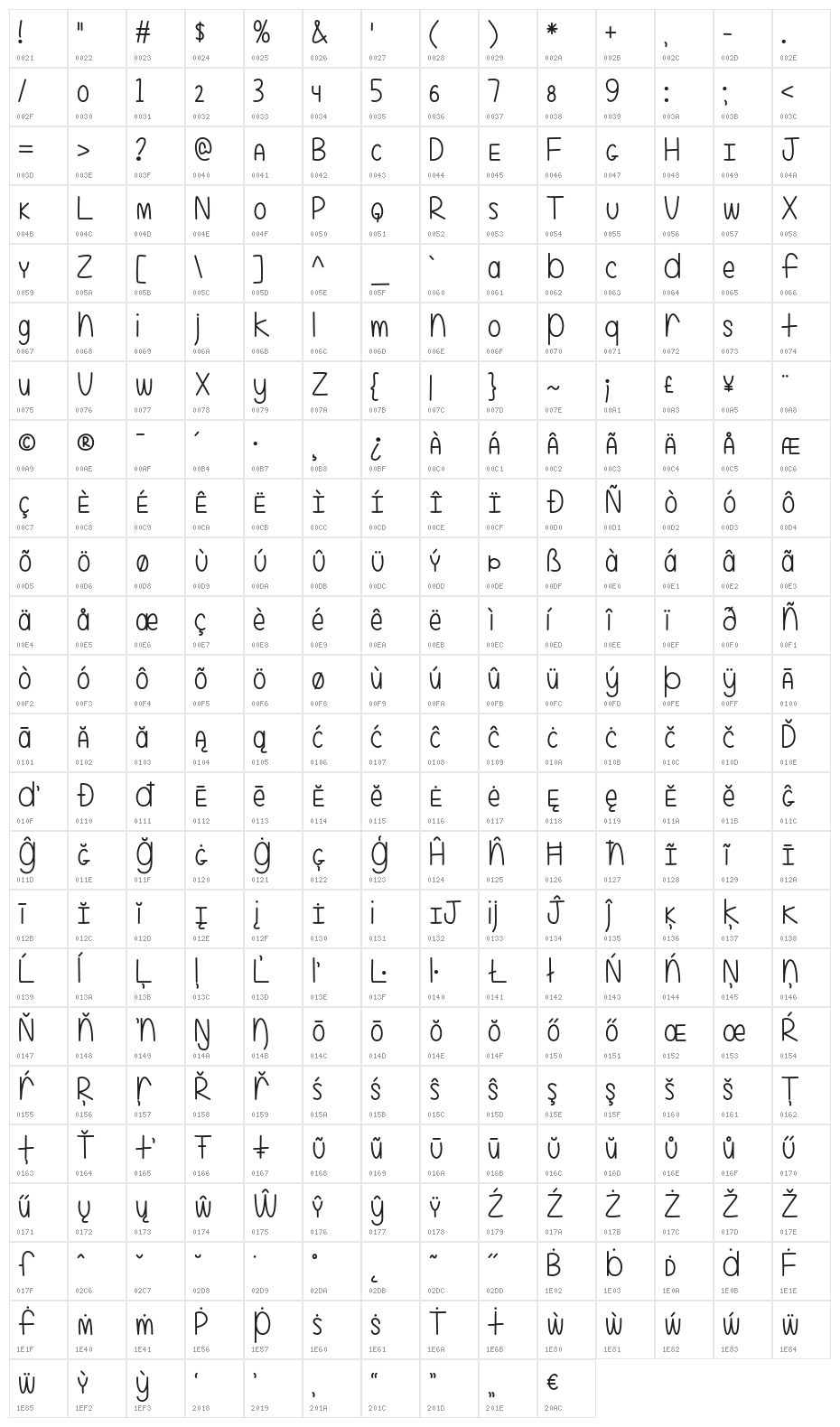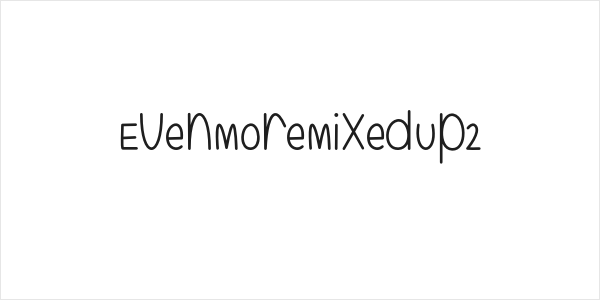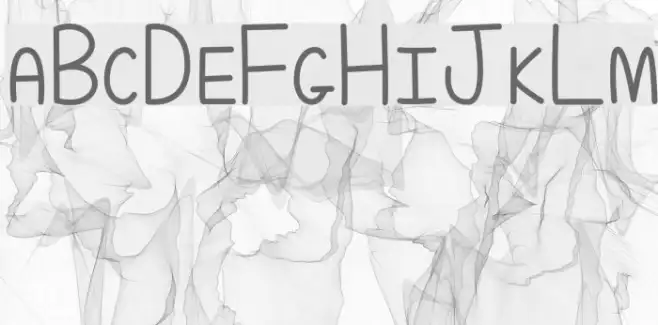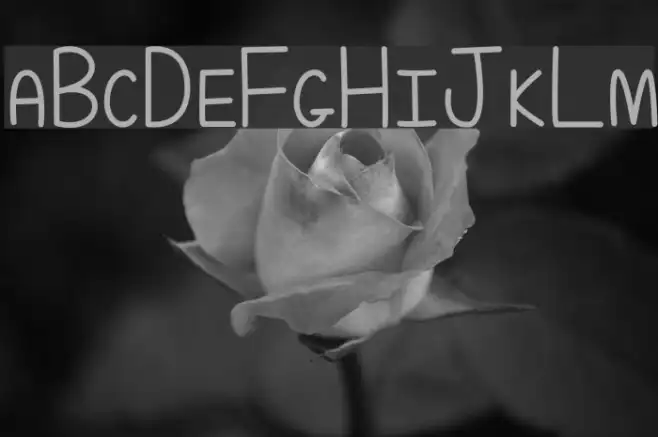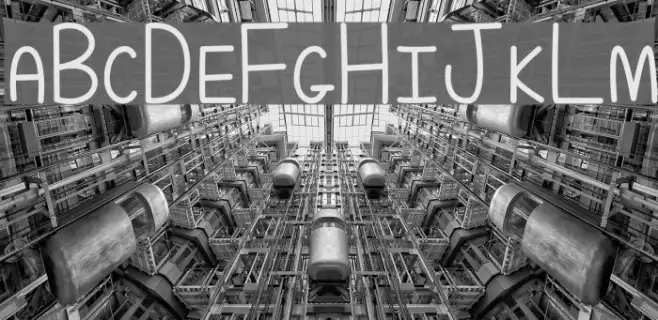
EvenMoreMixedUp2 Font
EvenMoreMixedUp2 Description
This playful and whimsical font features a handwritten style with a casual and informal appearance. The letters are slightly irregular, giving it a charming and approachable feel. The strokes are consistent in thickness, providing a uniform look across all characters. The uppercase and lowercase letters maintain a friendly and inviting aesthetic, while the numbers and special characters are clear and easy to read. This font's unique character is perfect for projects that require a personal touch or a creative flair.
| Overall Style | Casual and playful |
| Proposed Projects | Ideal for children's books, greeting cards, playful branding, and creative projects. |